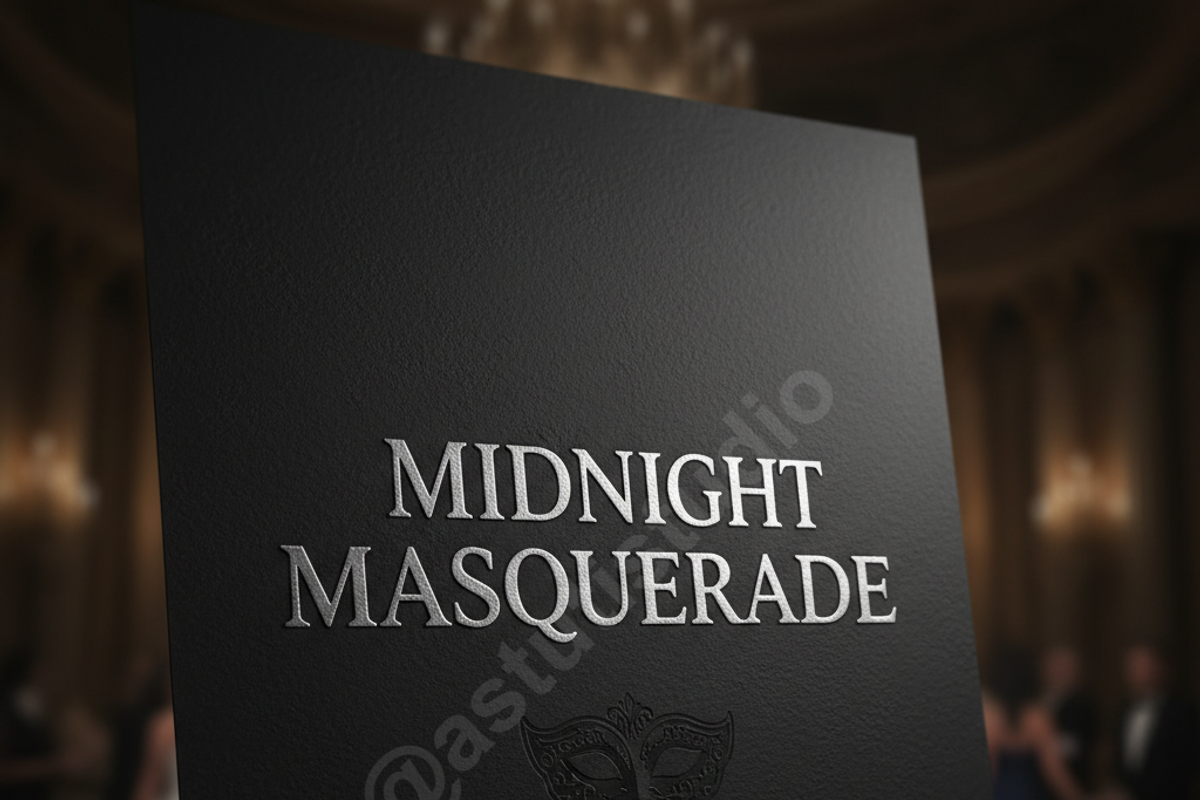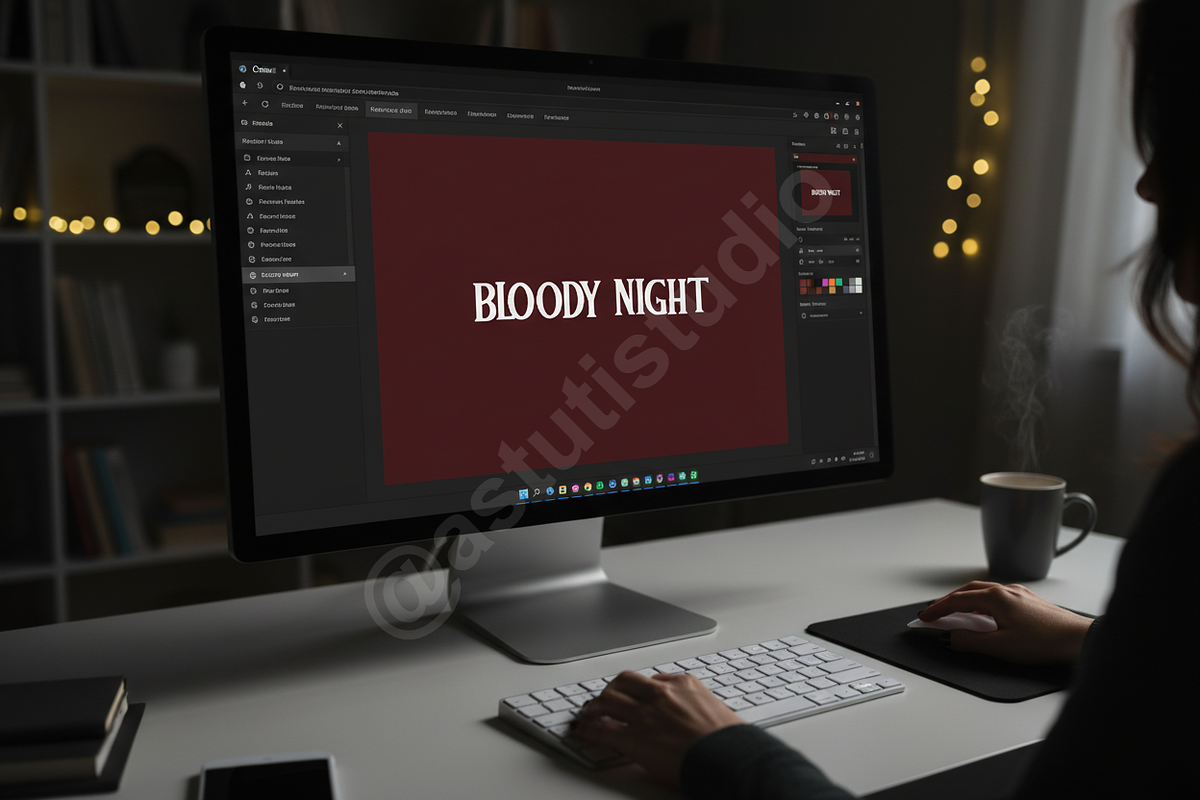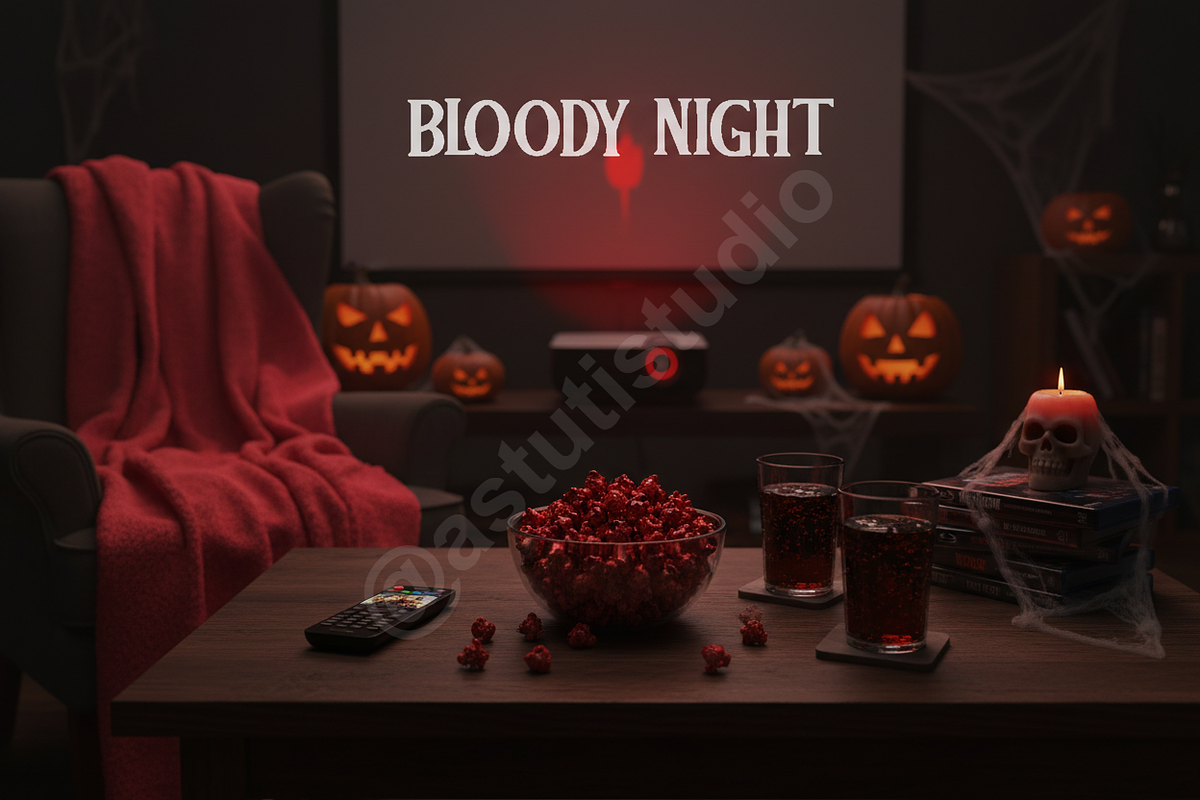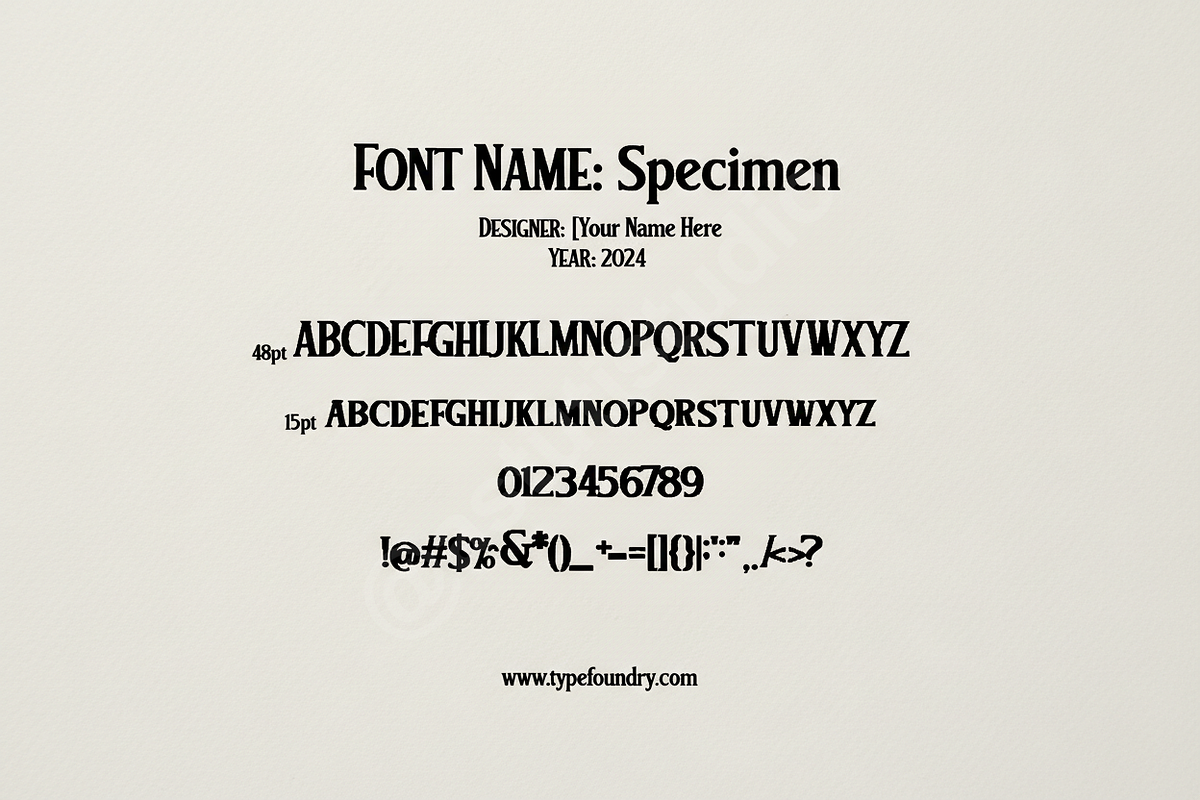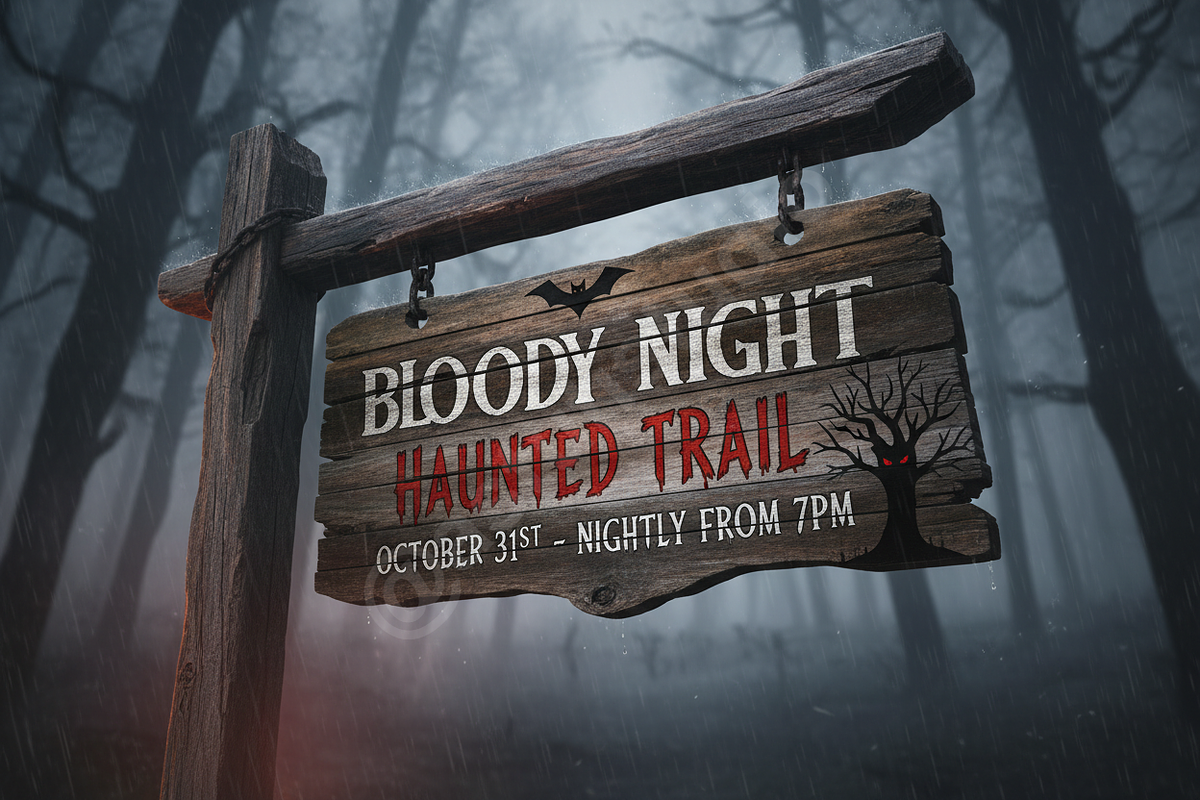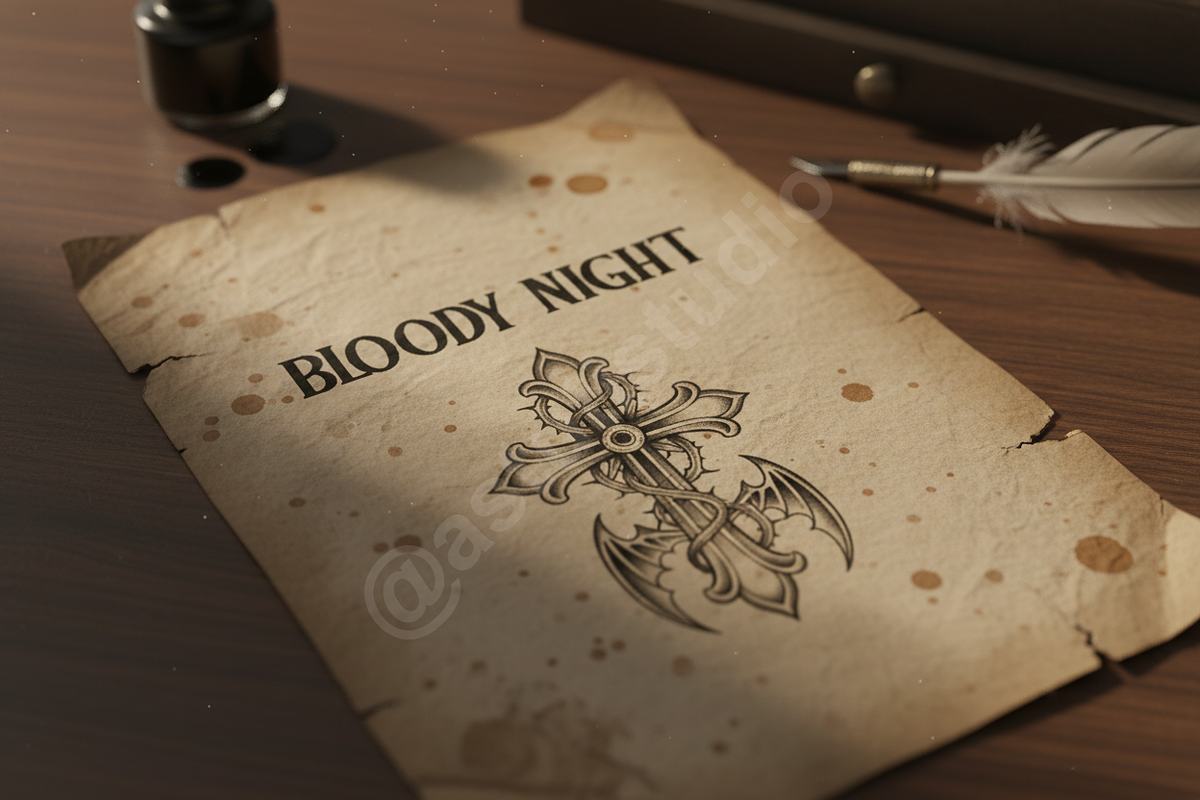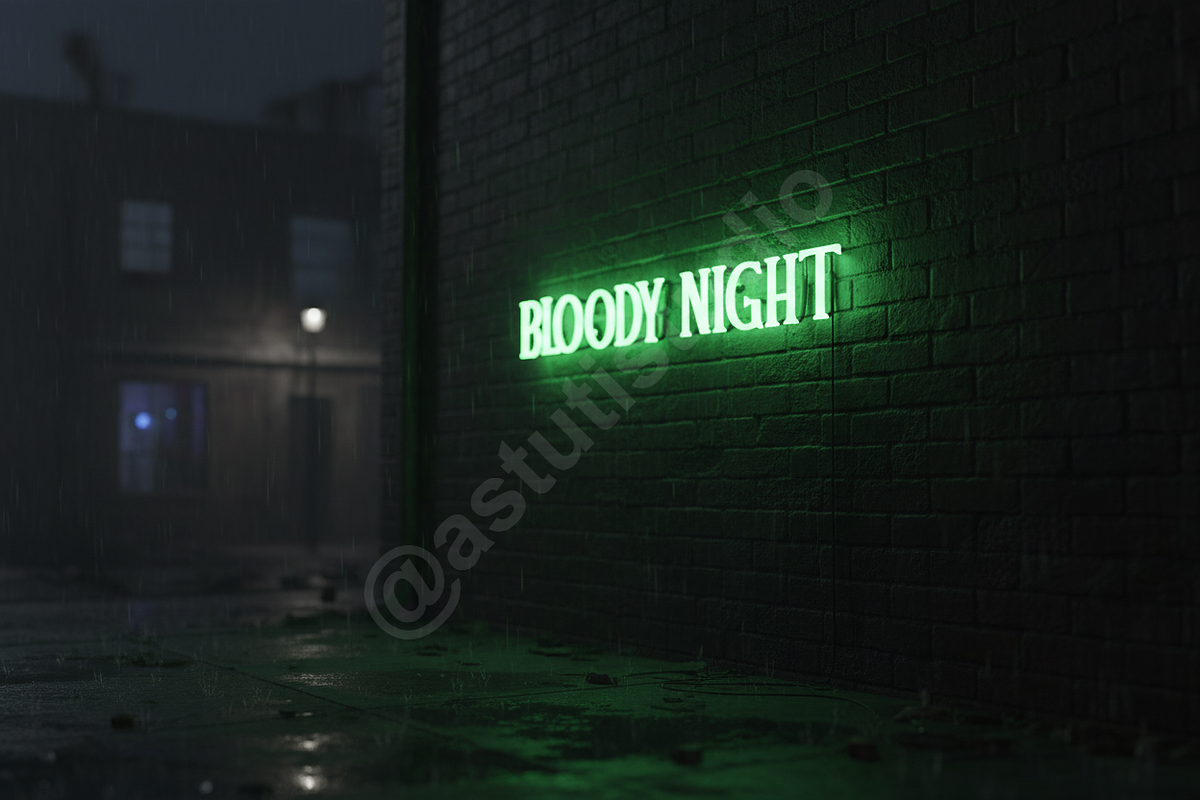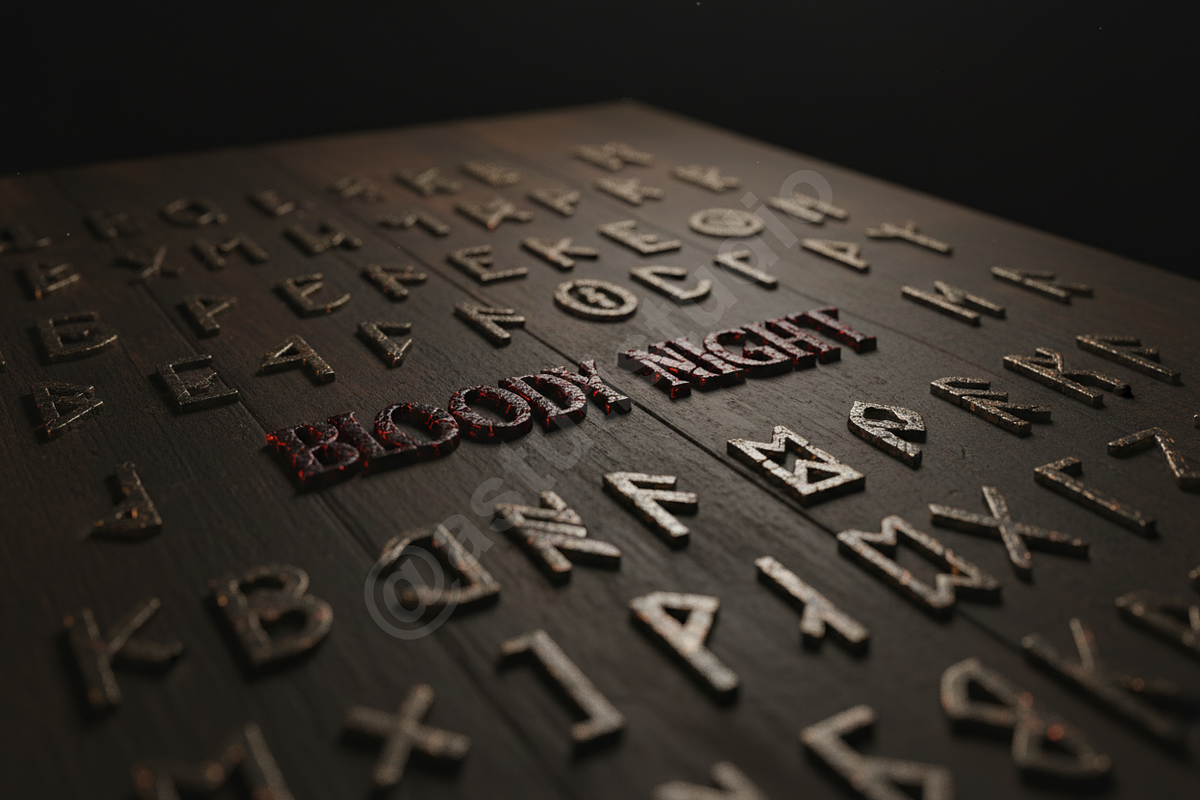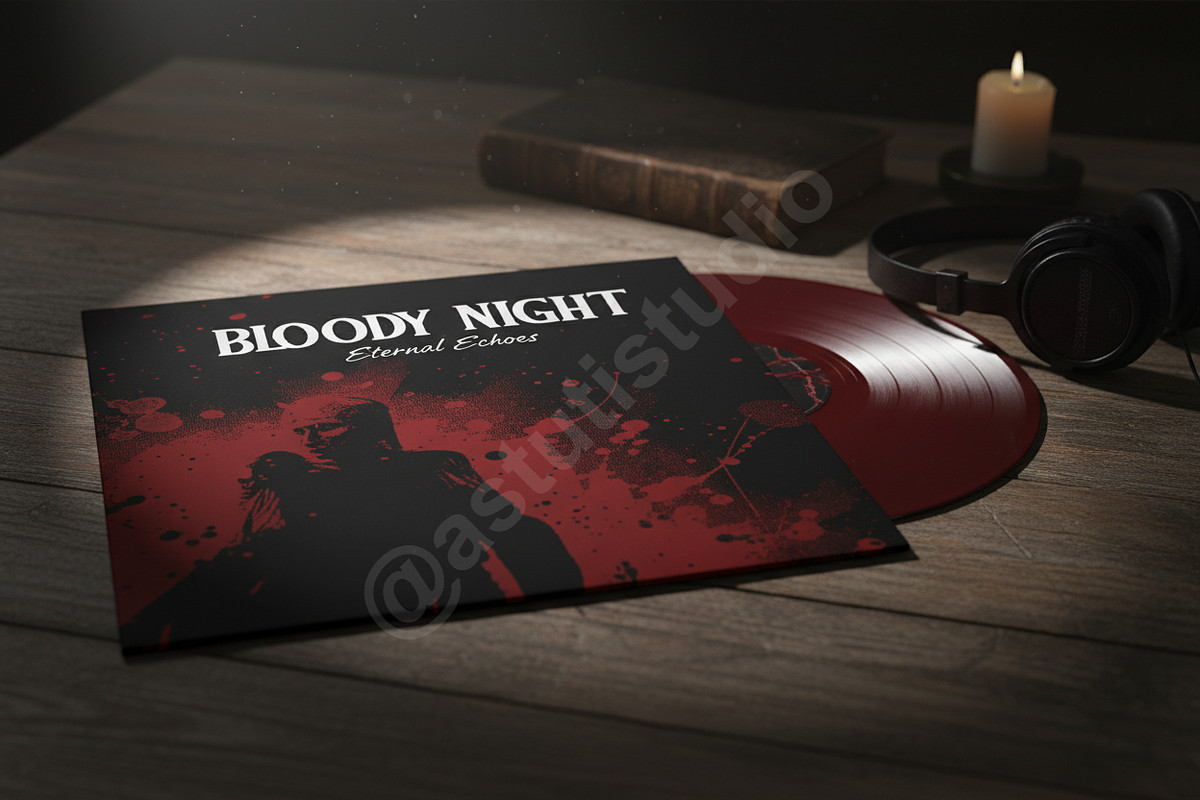
Jewuku | Elegant Modern Serif Font
Jewuku - An Elegant Modern Serif
Introduction Jewuku is a masterclass in modern serif design, blending timeless elegance with contemporary sophistication. Meticulously crafted for high-end aesthetics, this typeface exudes a sense of luxury and refined taste. Its high contrast and clean lines make it an indispensable tool for designers aiming to elevate their visual identity. Jewuku is particularly effective for luxury branding, editorial layouts, high-fashion magazine spreads, and premium social media content.
- Sophisticated and high-contrast letterforms
- Clean, sharp serifs for a professional finish
- Full uppercase and lowercase character set
- Numbers, punctuation, and symbols
- Standard ligatures for seamless flow